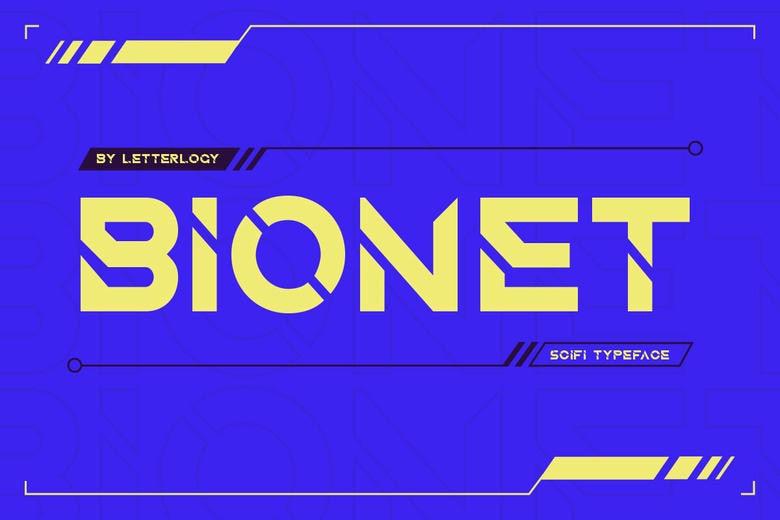
Bionet Font
Bionet is a geometric sans-serif stencil font that blends sharp, precise angles with smooth, modern curves. It is designed to add a sci-fi feel to your projects.
Bionet Display Font